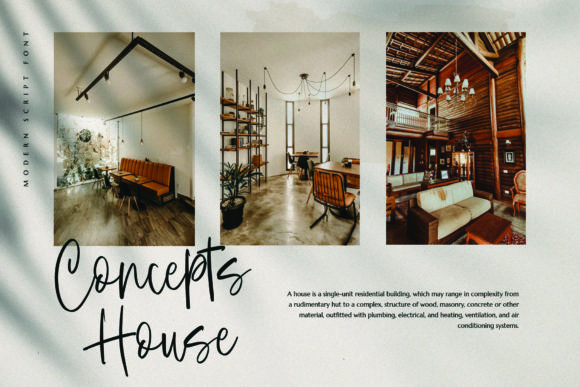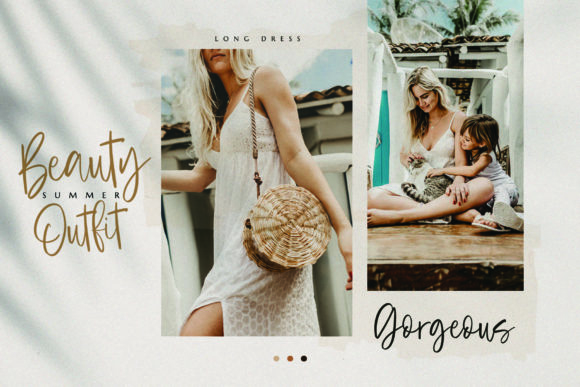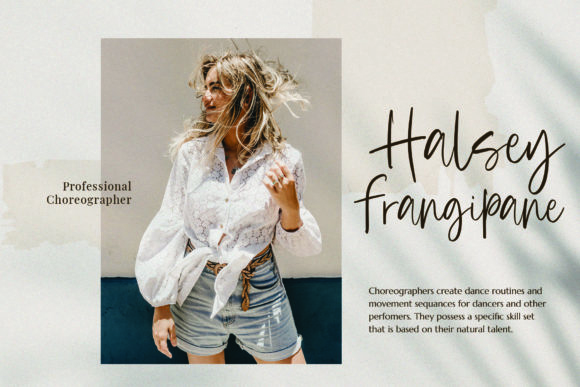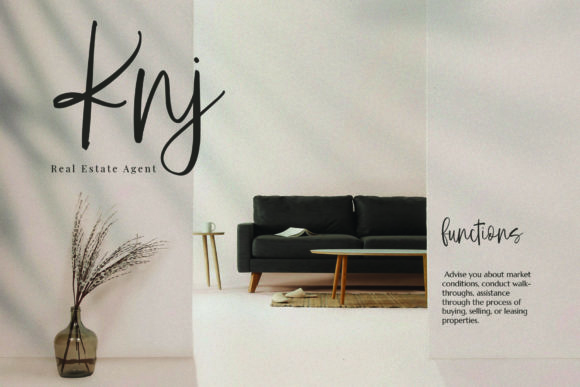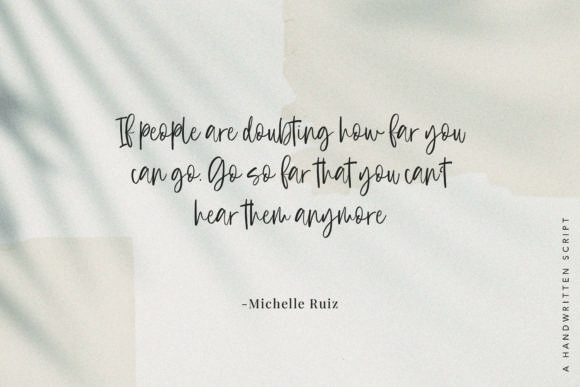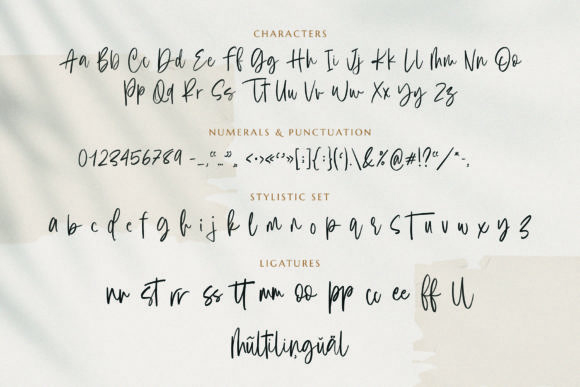
Introduction to Samoa Crab Font
Samoa Crab is a fresh, unique script with a carefree attitude and a playful edge.
Perfect for adding a quirky but casual feel, it comes with a large selection of natural-looking ligatures This font is perfect for logos, invitations, wedding designs, social media posts and much more.
Key Features of Samoa Crab Font
Why Choose Samoa Crab Font?
Samoa Crab Font offers exceptional quality and versatility, making it a valuable addition to your design toolkit. Whether you’re creating for personal projects or commercial use, Samoa Crab Font delivers professional results.